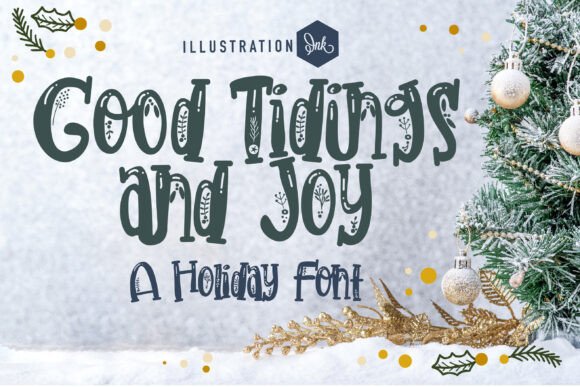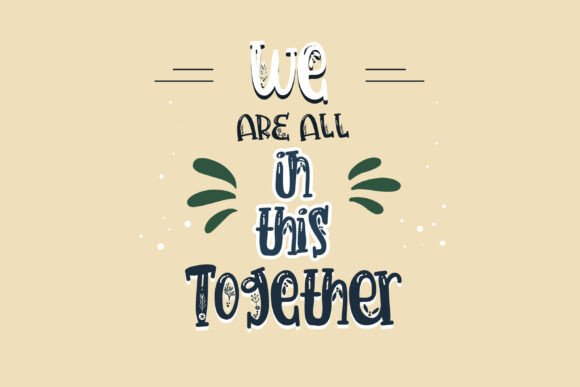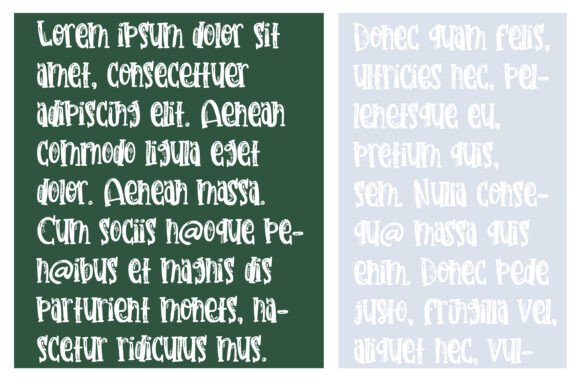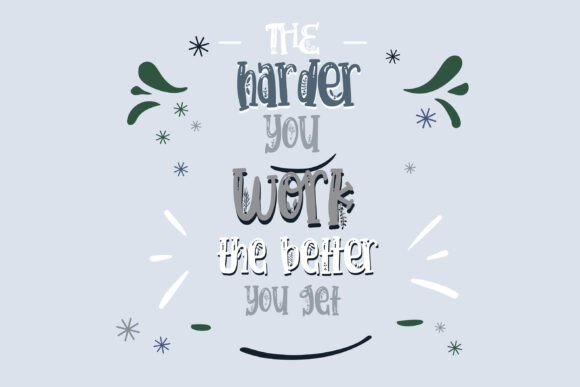
Good Tidings and Joy Font
About the Good Tidings and Joy Font
Meet Good Tidings and Joy Font, a stunning font that brings a touch of elegance and professionalism to any design. This hand-crafted font is a whimsical serif with holiday florals throughout.
Good Tidings and Joy is ideally suited for projects requiring a touch of whimsical charm, such as holiday-themed designs, wedding invitations, or branding for artisanal food products. Its playful nature makes it perfect for headlines, short text blocks, and decorative elements on packaging. However, the intricate details and varying stroke weights make it less suitable for body text or UI elements where high readability is crucial.
This font’s personality is undeniably cheerful and festive. To balance its whimsicality, consider pairing it with a clean sans-serif like Montserrat for a modern contrast, or a classic serif like Garamond for a more traditional feel. For a touch of elegance, a simple script font such as Lora would complement its decorative flourishes.
Avoid using Good Tidings and Joy in contexts demanding high legibility over extended passages. Its unique character shines best when used sparingly, enhancing rather than dominating a design.